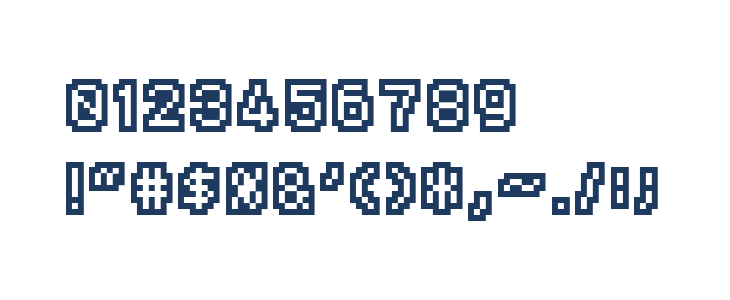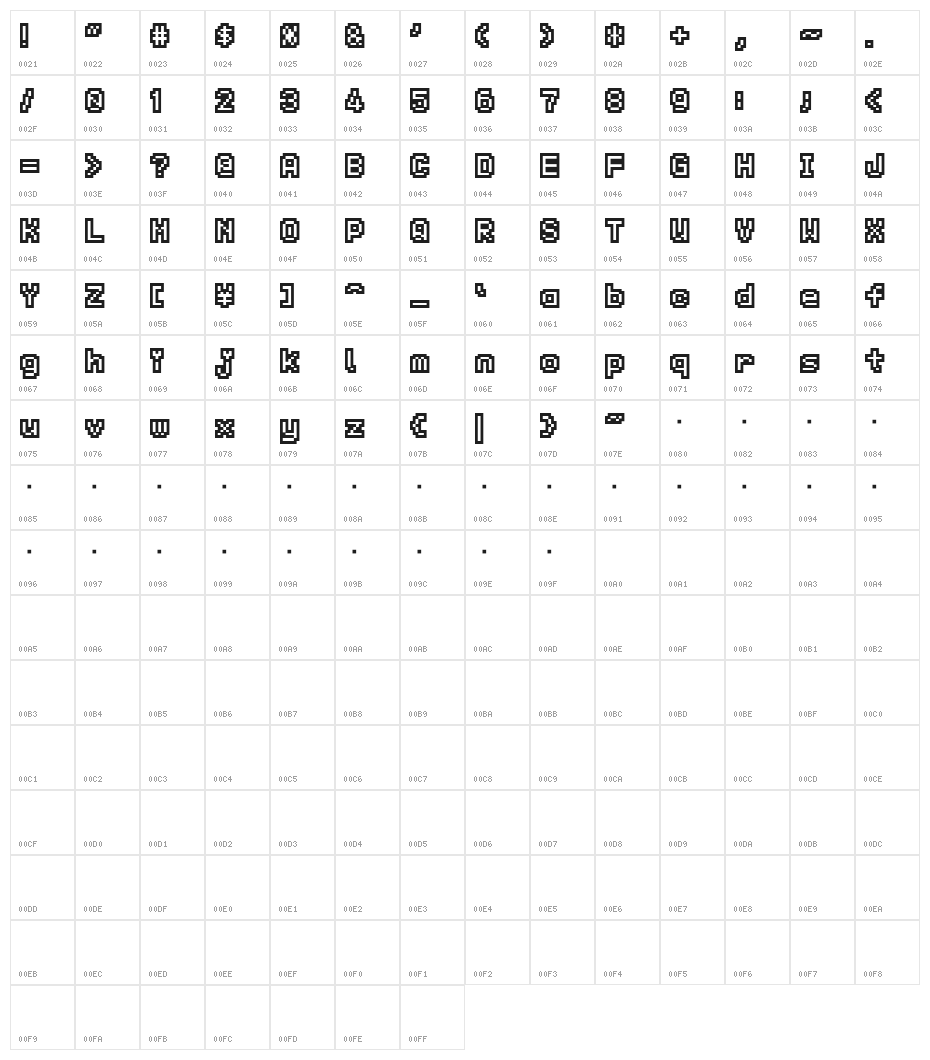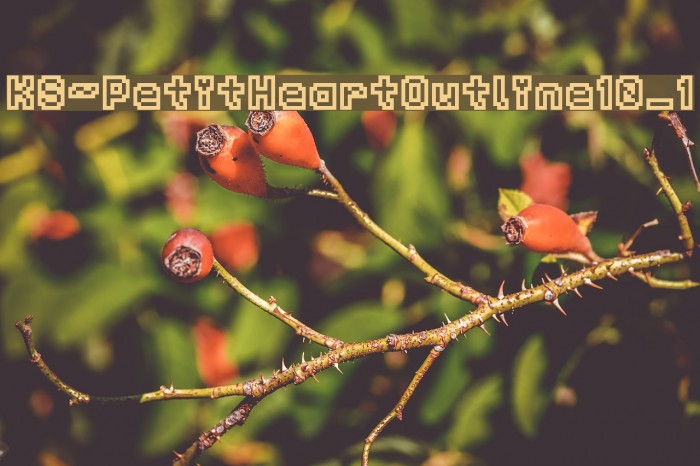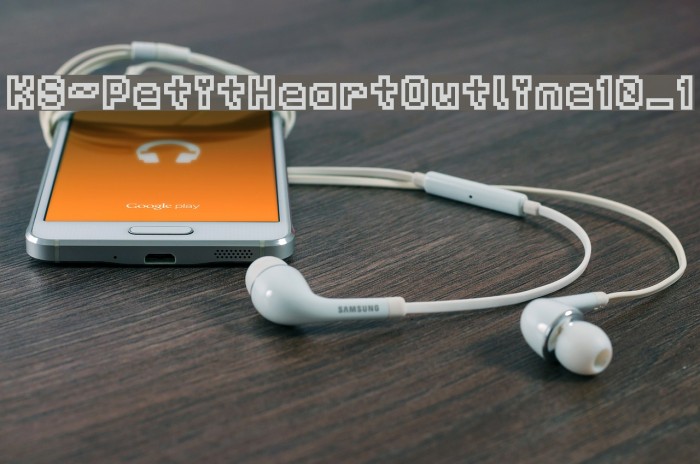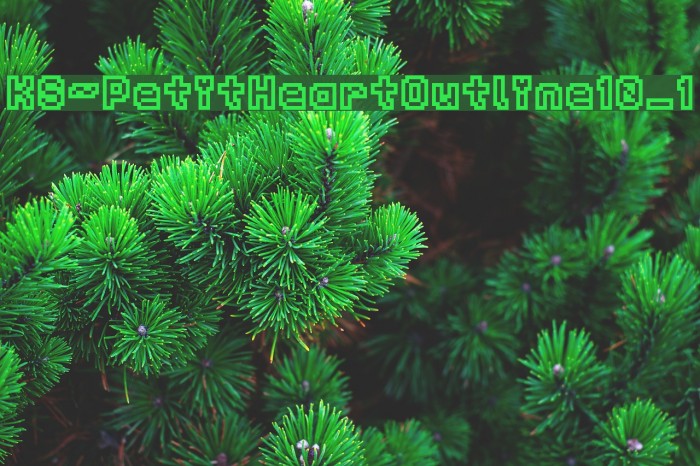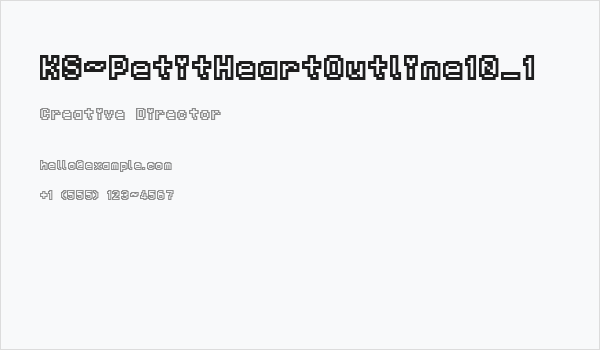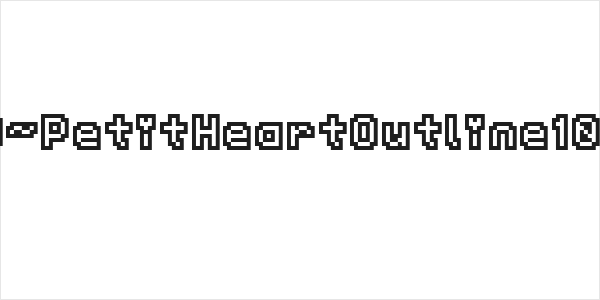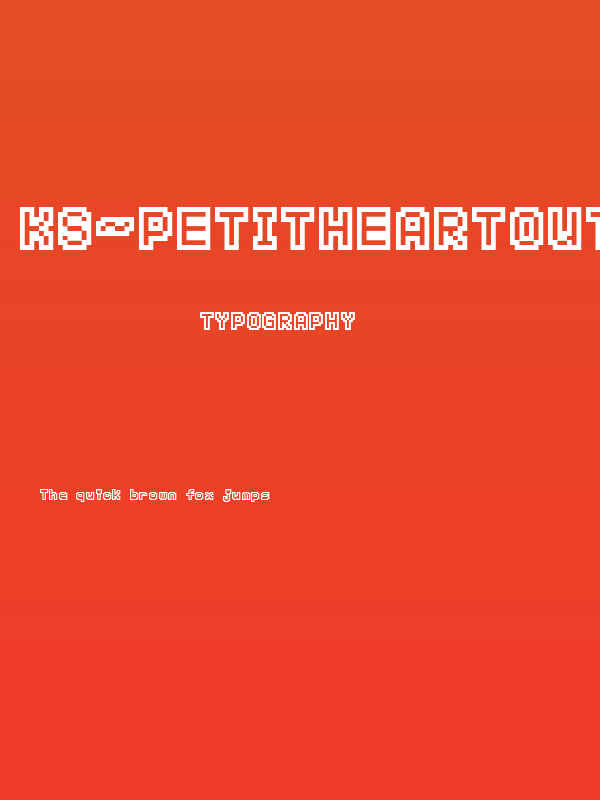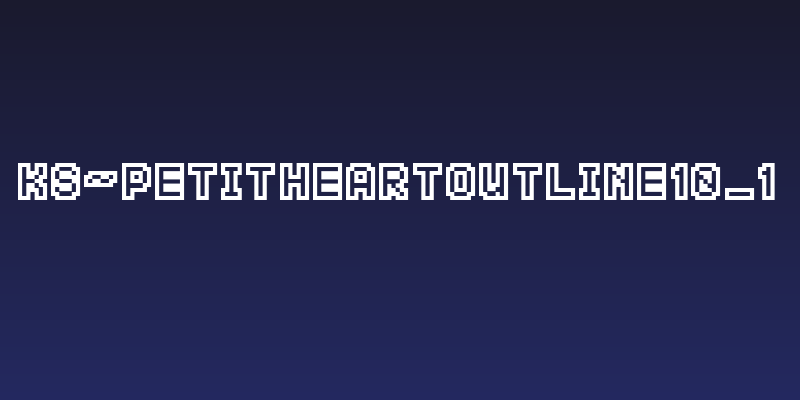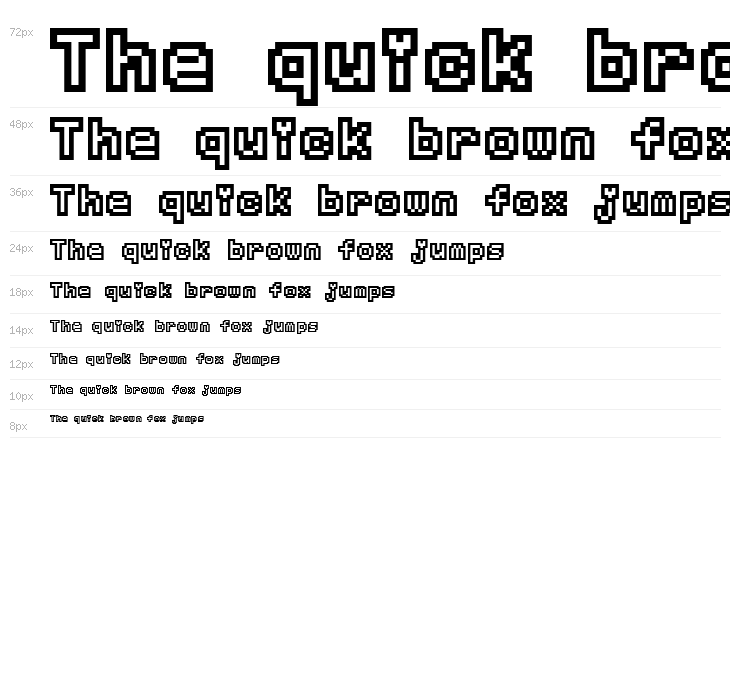
KS-PetitHeartOutline10_1 Font
KS-PetitHeartOutline10_1 Description
This font features a playful, pixelated outline style that gives each character a distinct, retro video game appearance. The characters are formed with a consistent stroke width, creating a uniform and cohesive look. The uppercase and lowercase letters maintain a blocky, geometric aesthetic, while the numbers and special characters follow the same design principles. This font's outline design adds a layer of depth and visual interest, making it stand out in digital and print media. The overall style is reminiscent of early digital typography, evoking a sense of nostalgia and fun.
| Overall Style | Retro, Playful |
| Use Case | Headlines, Logos, Digital Art |
| Proposed Projects | Ideal for video game design, retro-themed posters, digital art projects, and playful branding. |